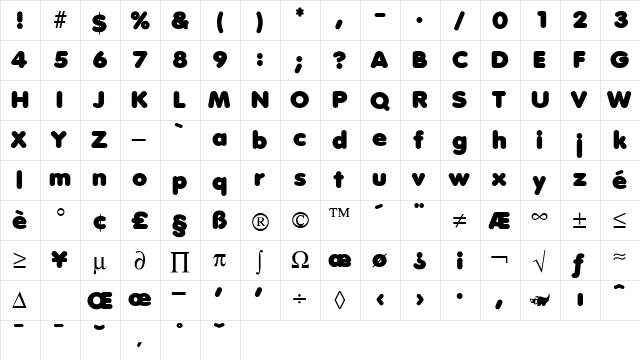
Debussy Medium
Design Context for Debussy Typeface
Debussy offers clean, dependable letterforms without strong stylistic allegiance, making it a practical choice for designers who need flexibility.
Pro Tip: Pair Debussy with a font of contrasting weight or personality to build a more expressive typographic hierarchy.